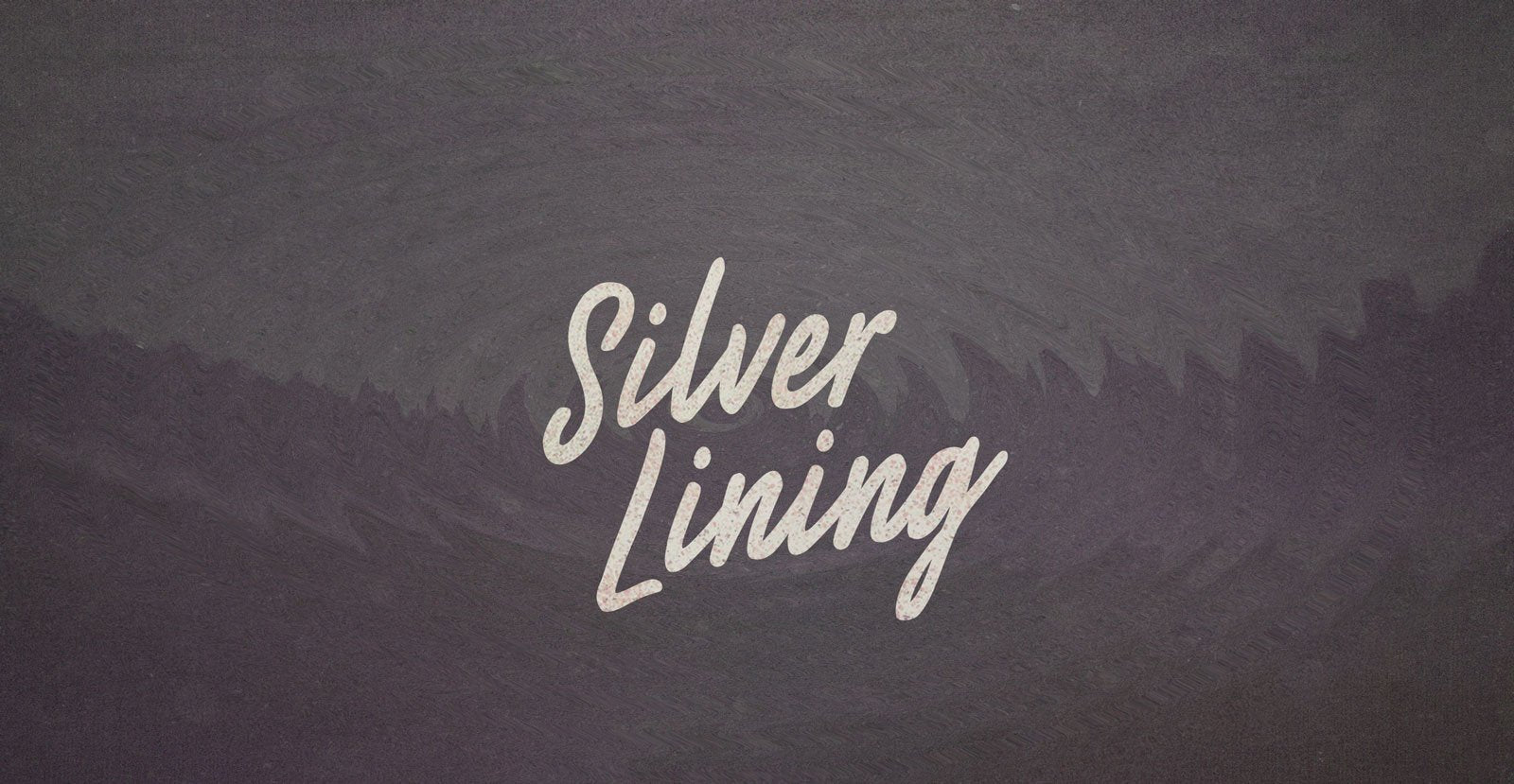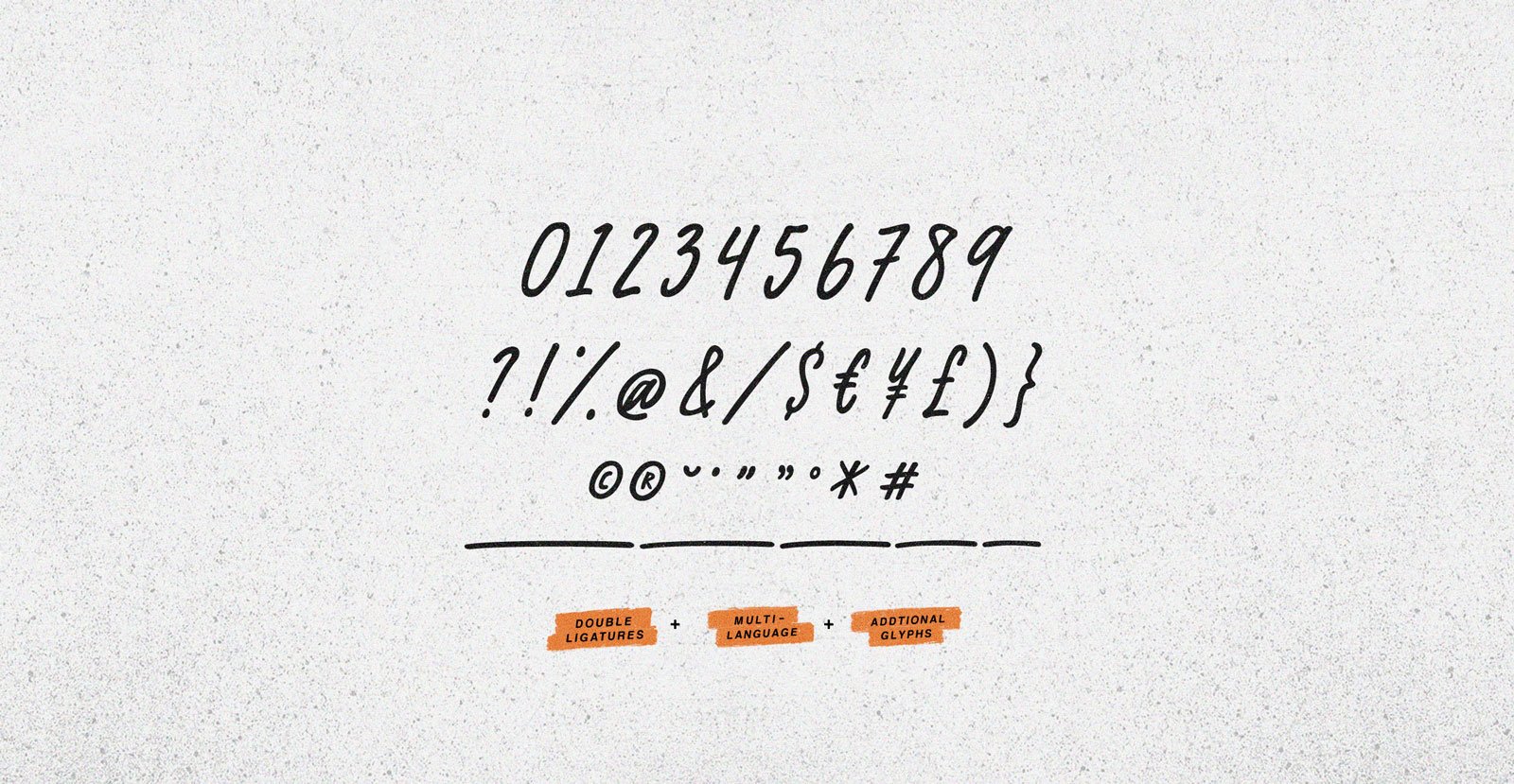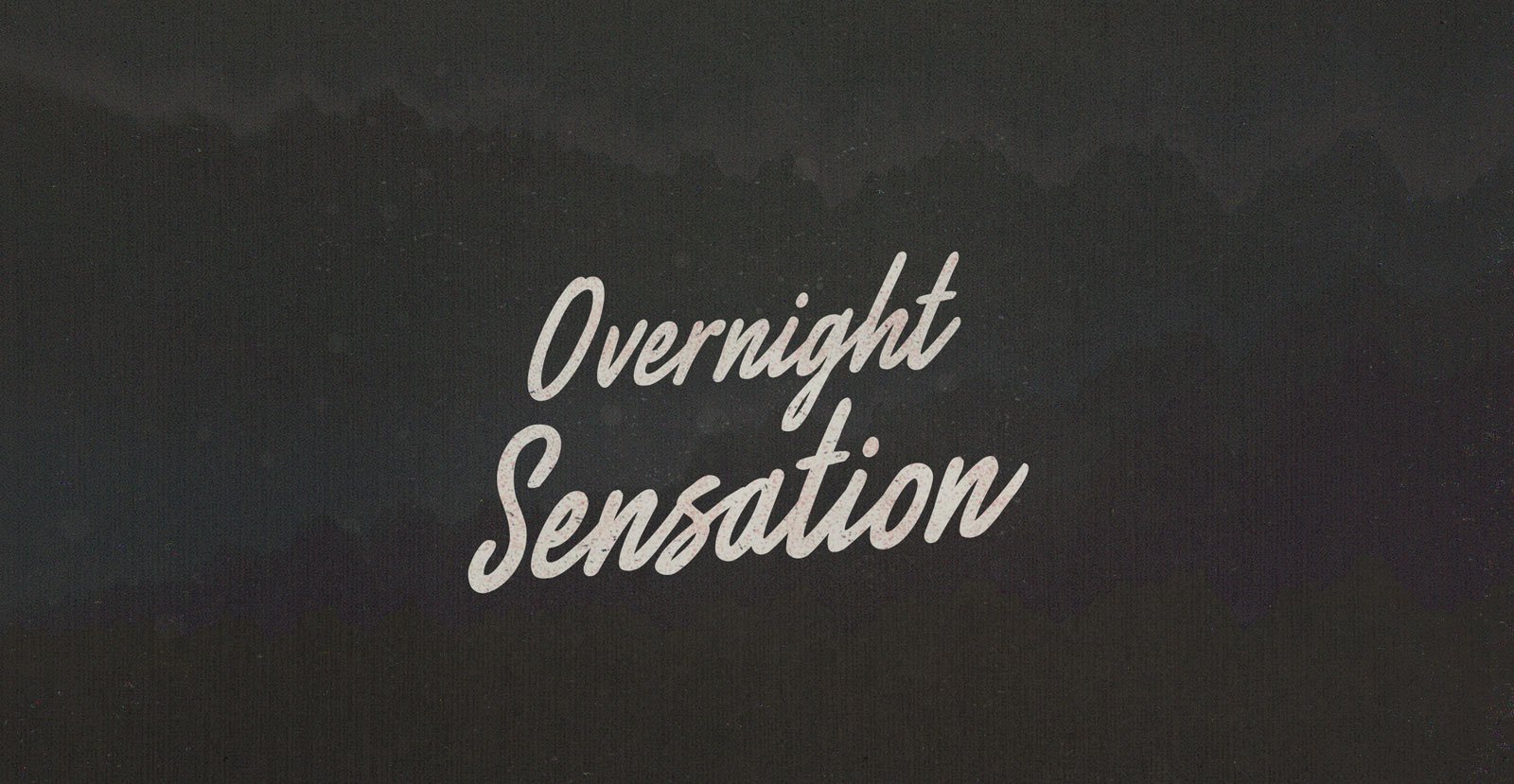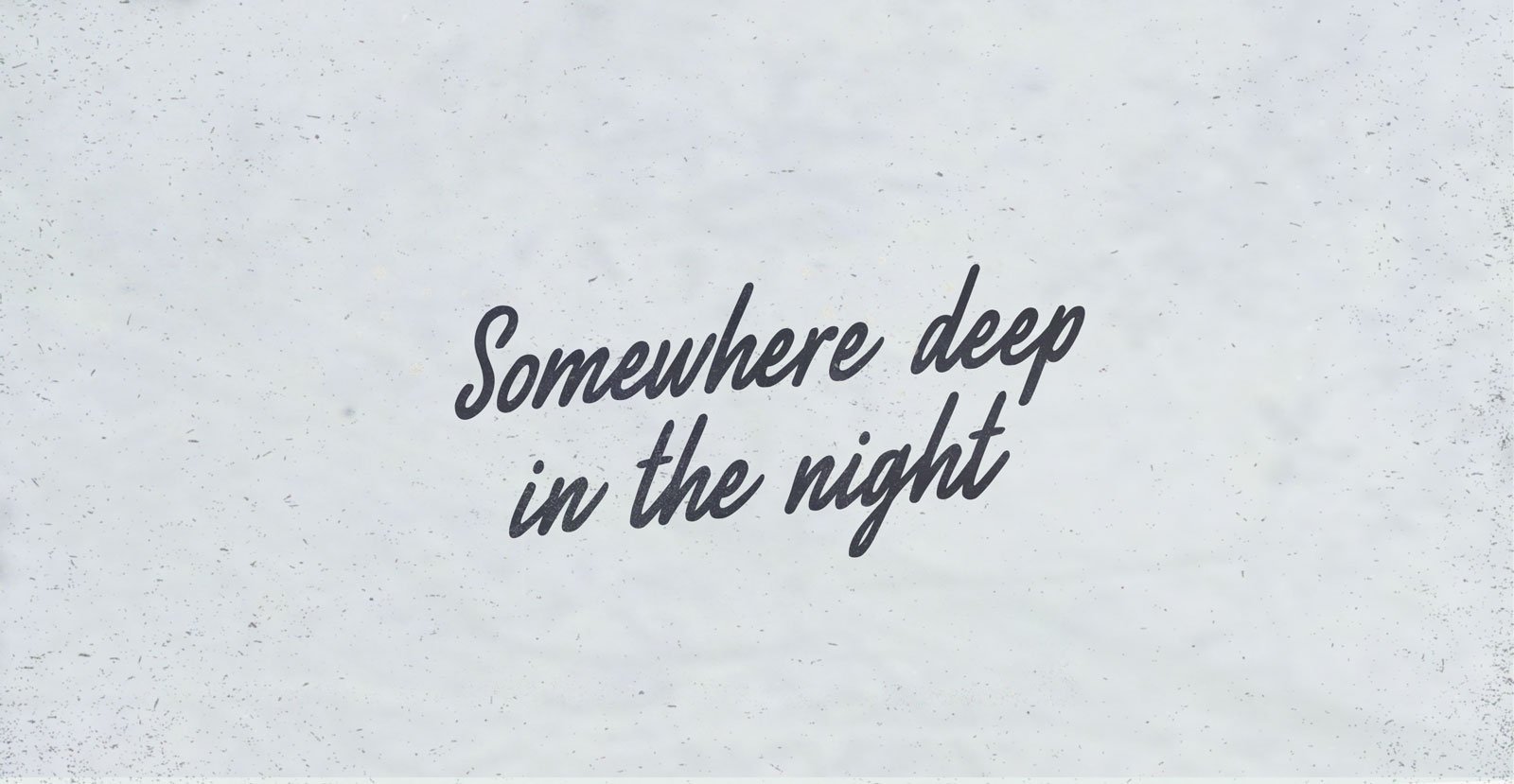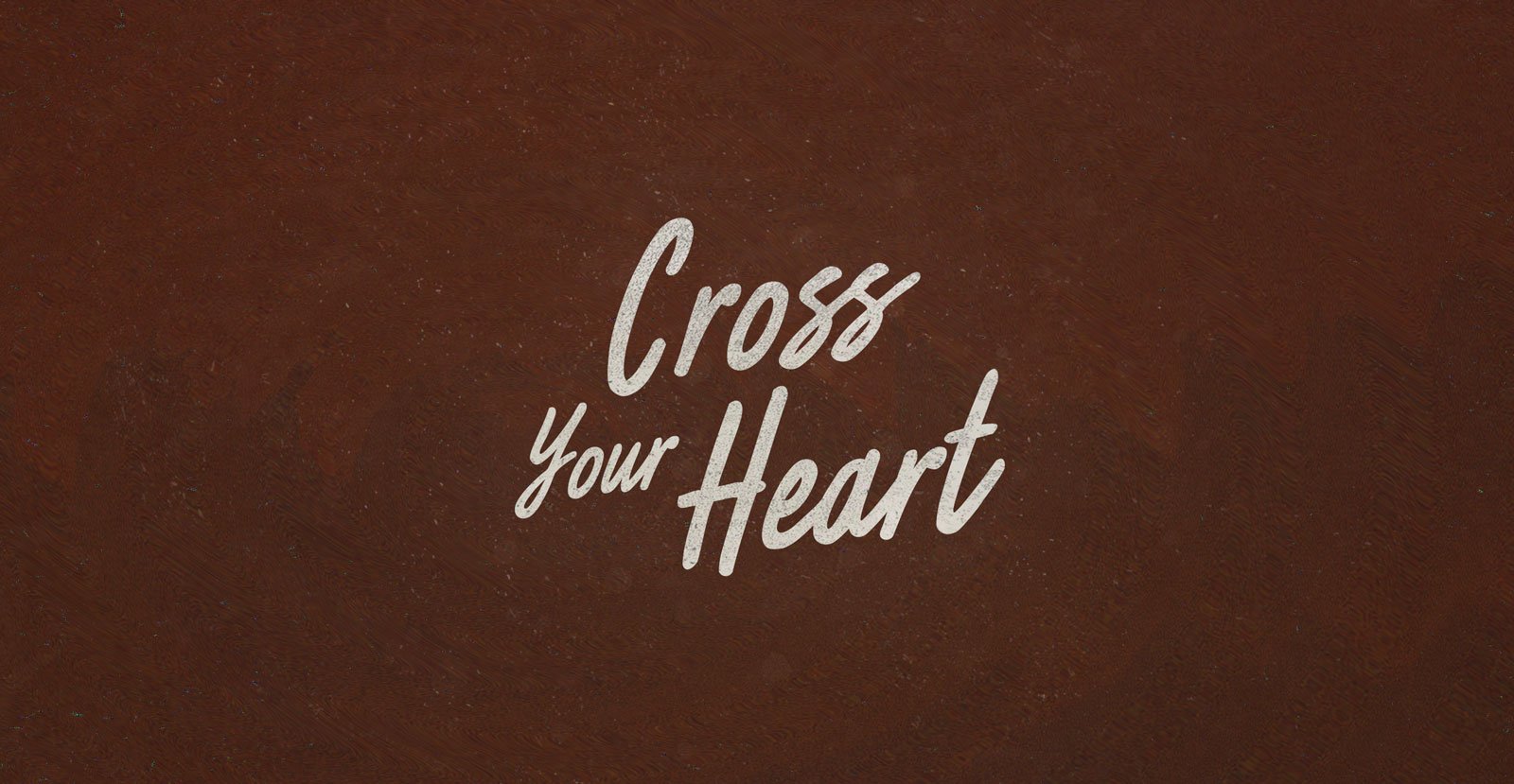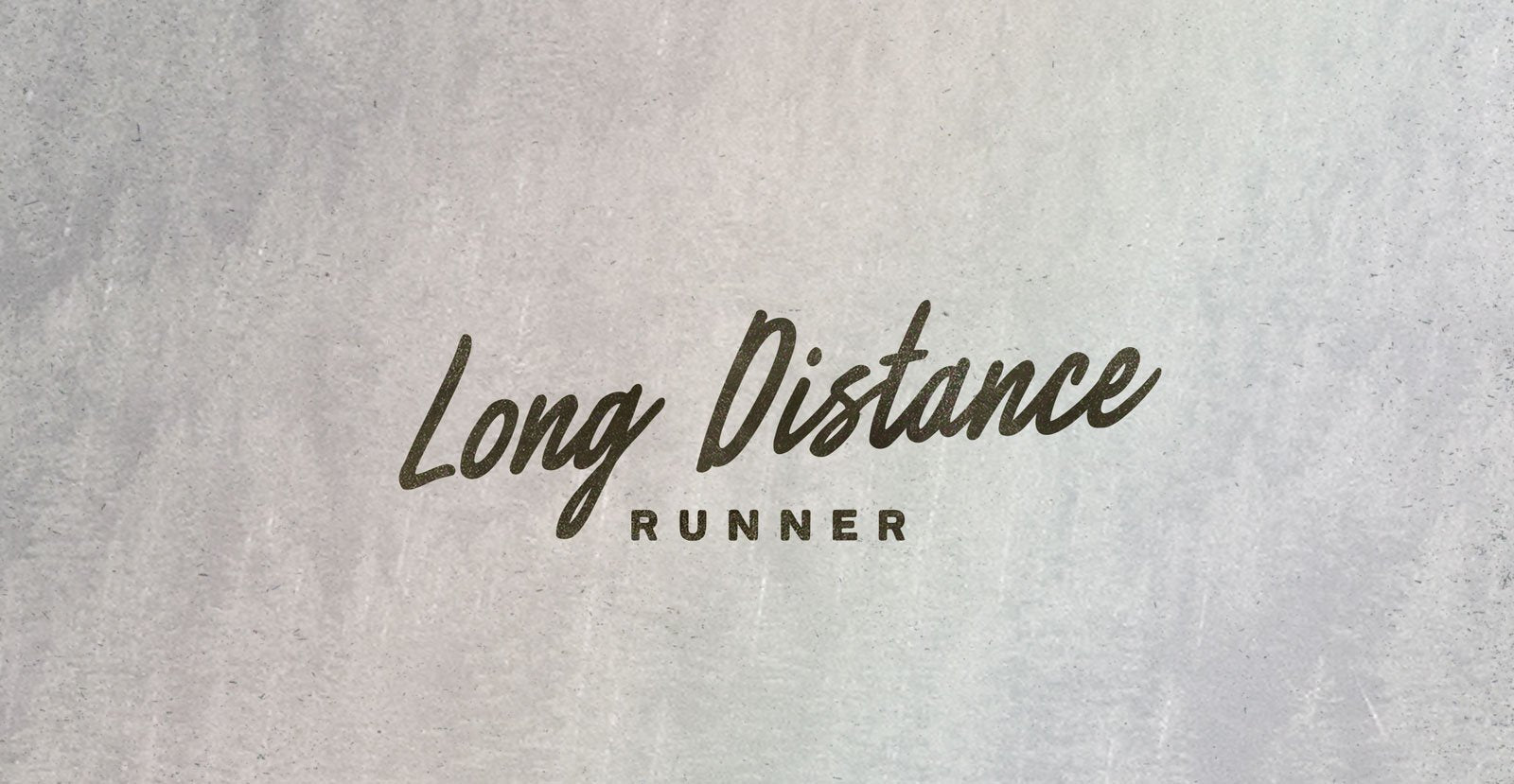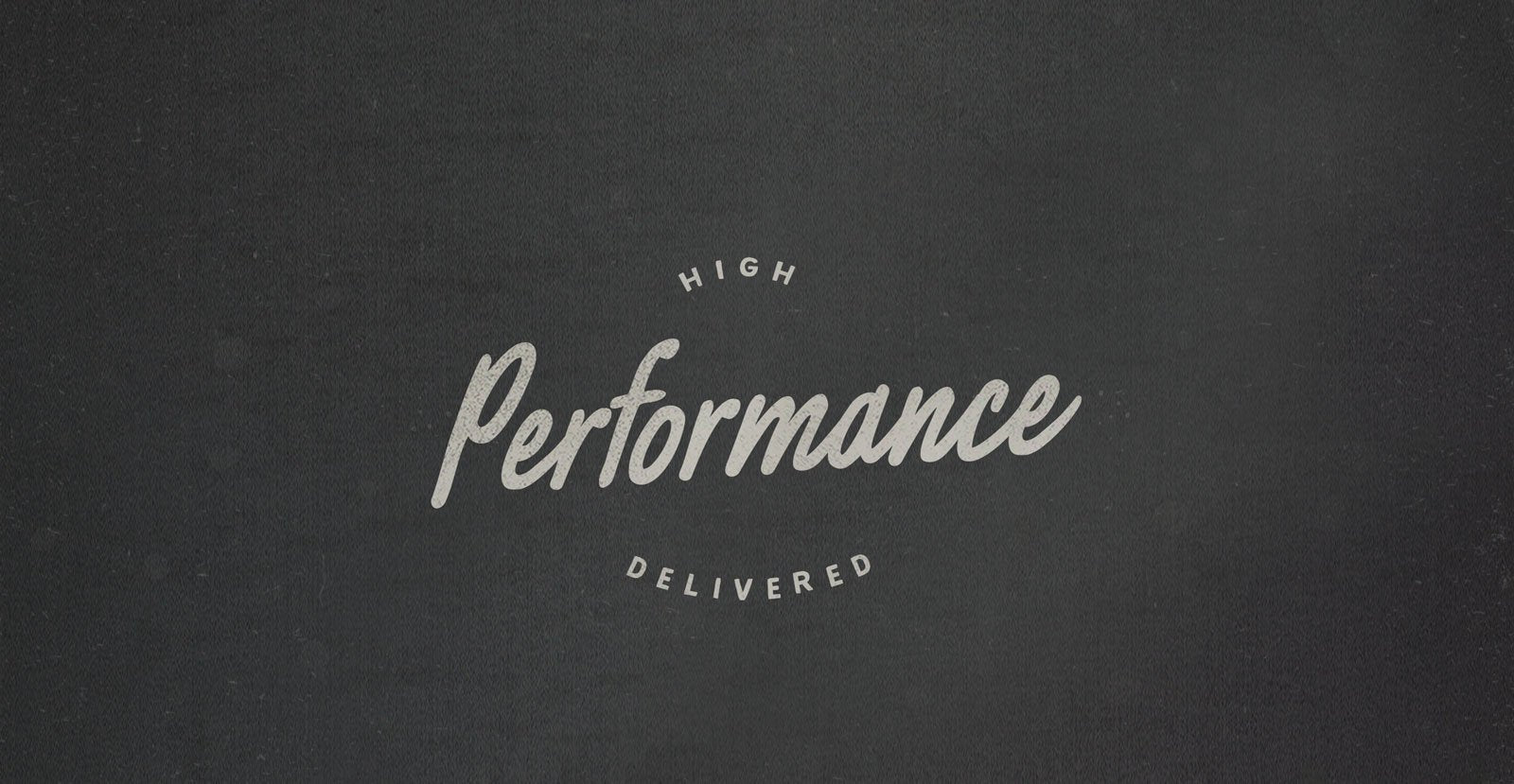
Silver Lining
So long as length is relative, we aren't here for the longest time of all time. Leaving the year behind, the year left you alone with time to reflect on the self-reflection that you can't see, cast from the Silver Lining of your coat drawn closed and close as an effort at self-protection from the seasonally cold.